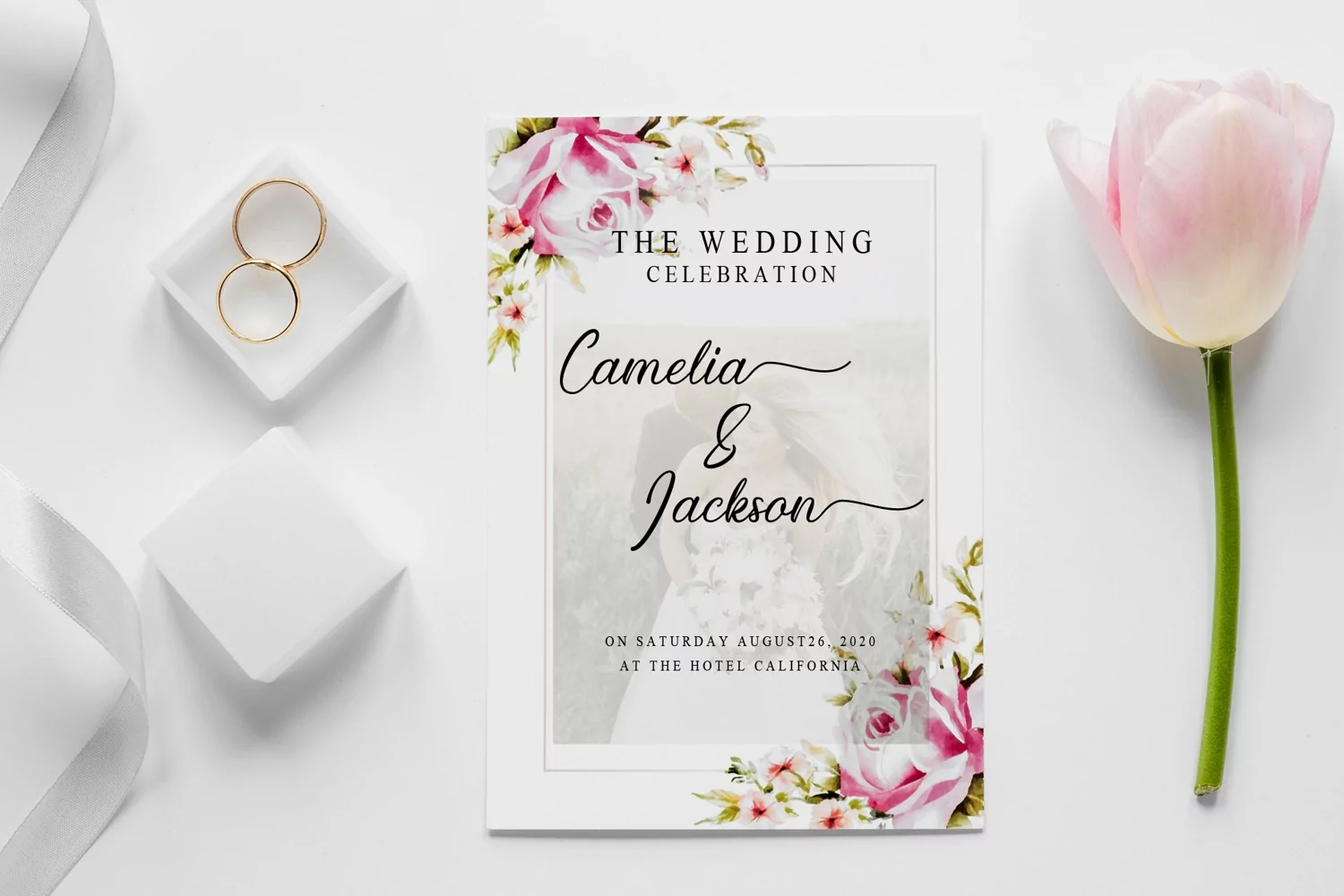
Introducing our latest product, Kiara Akira, is a loved script font. Kiara Akira is very beautiful, various kinds of alternate characters, one of them is a heart symbol connector every letter that will surely enhance every design projects.
This font is great for many design projects such as product brand, quotes, clothes, business card, wedding invitation, signature, logos, lettering, etc.
There are many sophisticated alternate characters.